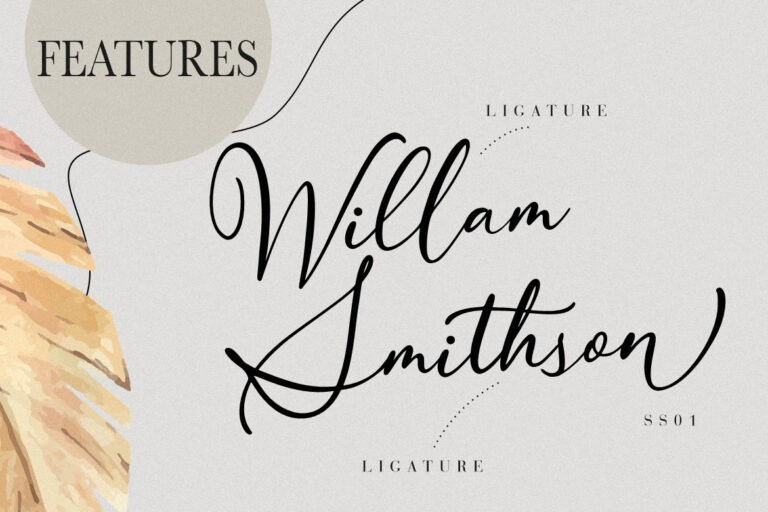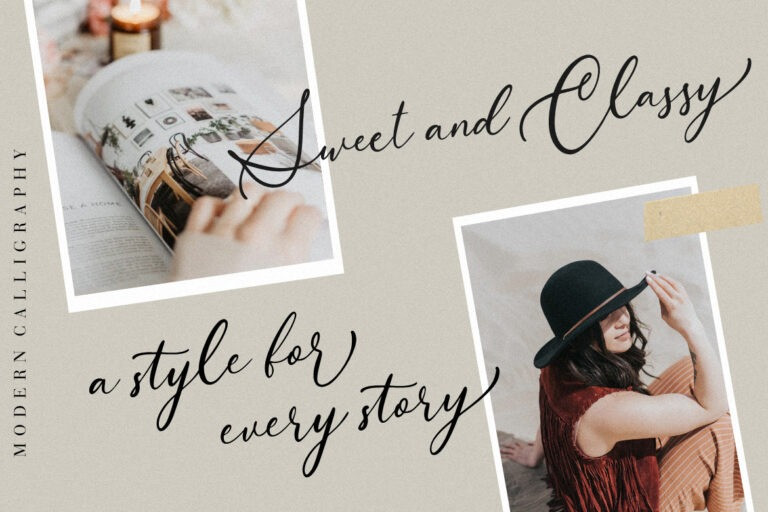
Gittelsy Script Font
Gittelsy is a font with modern monoline style and very suitable for your daily use. You can use it for branding, poster, logo, signature, t-shirt design, social media post and many more.
The alternative characters were divided into several Open Type features such as Swash, Stylistic Sets, Stylistic Alternates, Contextual Alternates. The Open Type features can be accessed by using Open Type savvy programs such as Adobe Illustrator, Adobe InDesign, Adobe Photoshop Corel Draw X version, And Microsoft Word. And this Font has given PUA unicode (specially coded fonts). so that all the alternate characters can easily be accessed in full by a craftsman or designer.